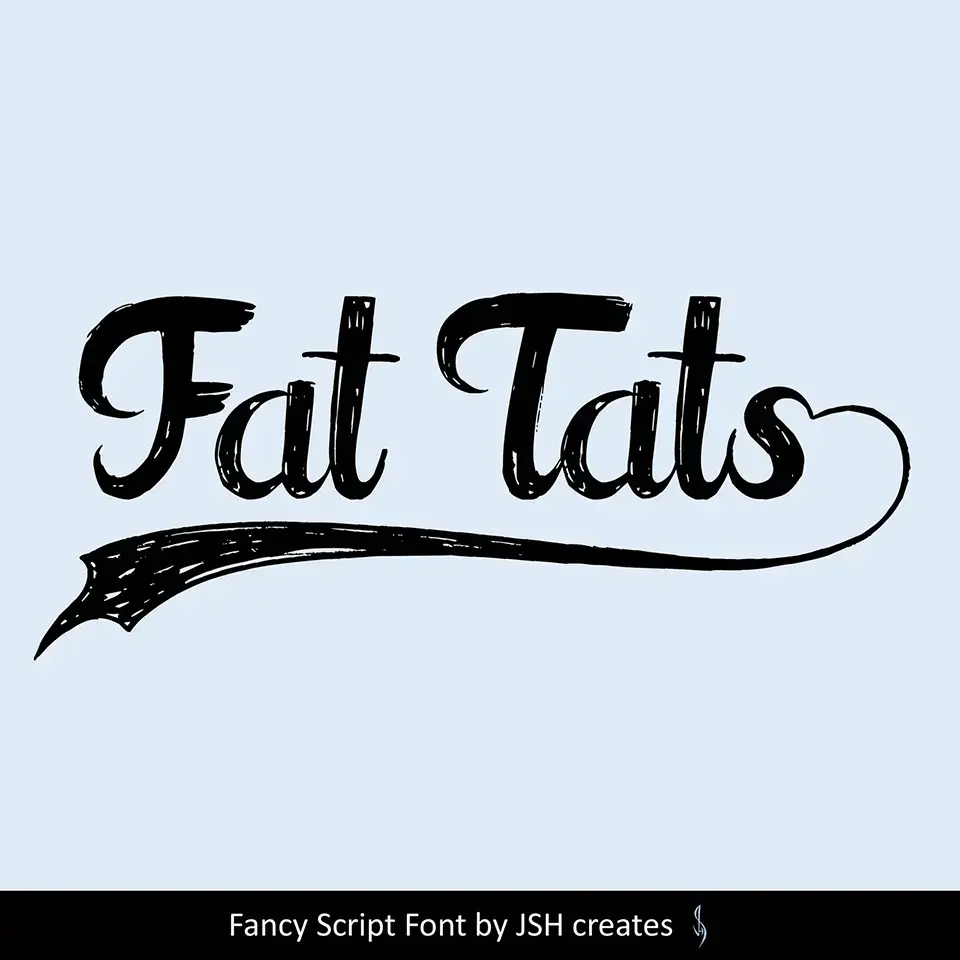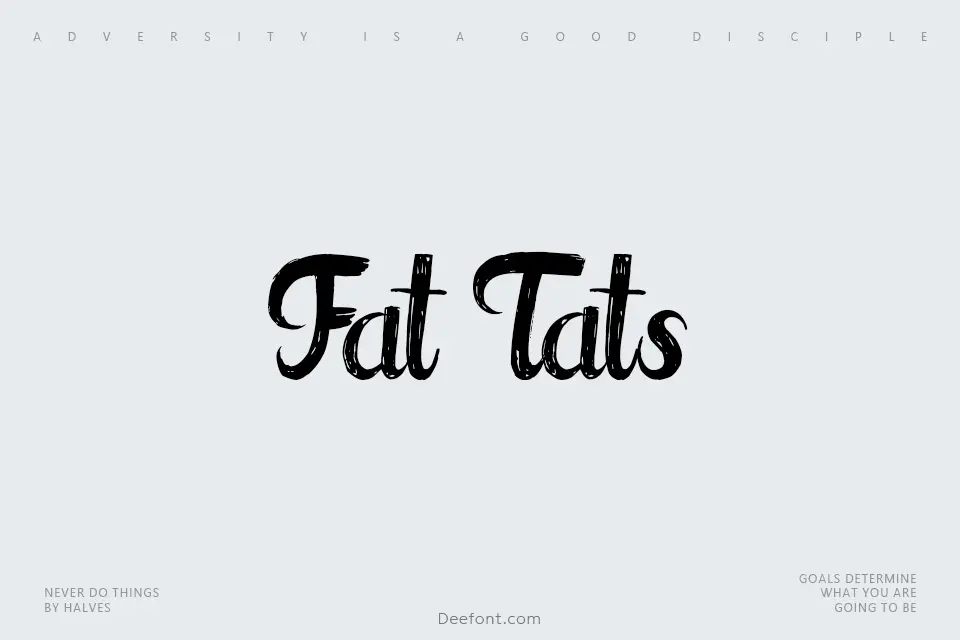
Fat Tats Font
Fat Tats is a striking script typeface that brings authentic tattoo aesthetics to modern design projects. With thick, flowing letterforms and hand-drawn appeal, this font excels at creating eye-catching posters, bold logo designs, and vintage-themed headlines. Its distinctive old school character makes it ideal for decorative displays, album covers, and projects demanding retro visual impact with strong personality and unconventional charm.